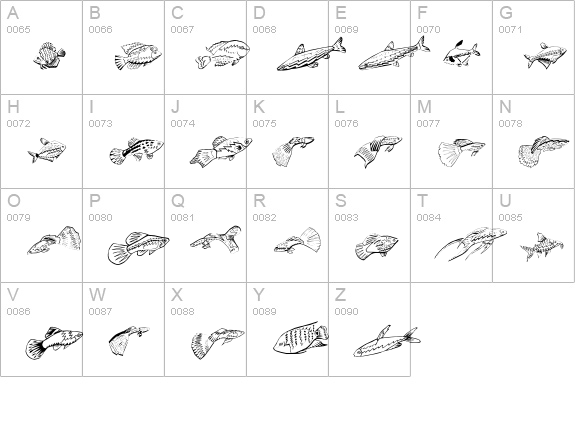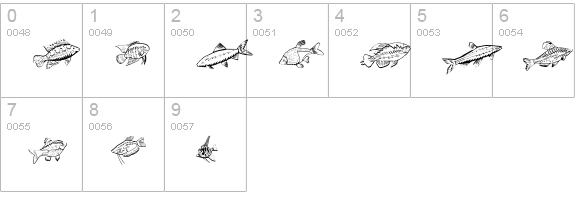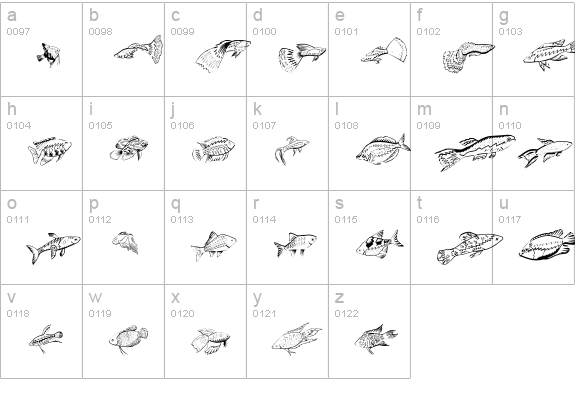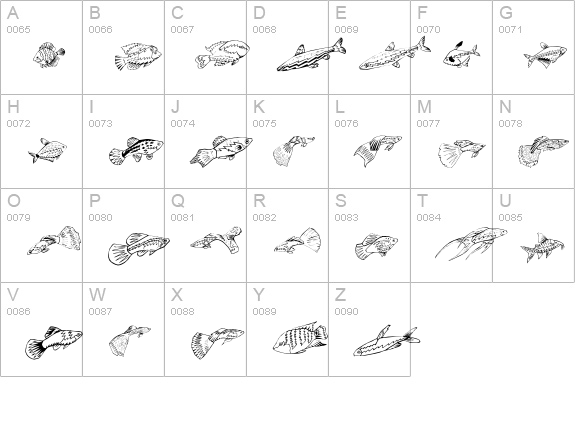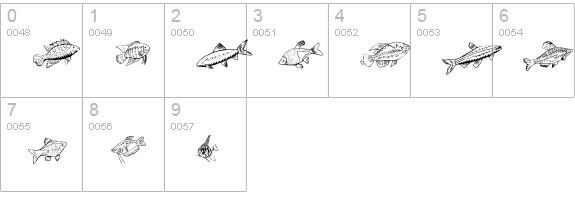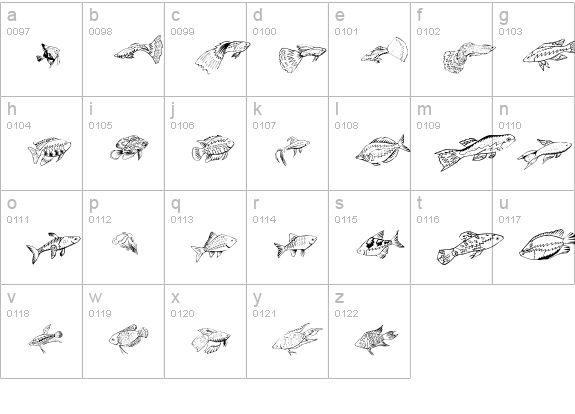
Fishing Font Details
Introducing the captivating Fishing font, a charming and whimsical typeface perfect for adding a touch of playfulness to your design projects. This unique font features flowing lines and quirky details that evoke a sense of adventure and creativity. Whether you're working on a children's book, a branding project, or simply want to inject some fun into your designs, Fishing font is sure to make a lasting impression. And the best part? Fishing font is completely free to download at FontsMarket.com! So go ahead and add this delightful font to your collection today and let your creativity soar with its playful charm and versatility.